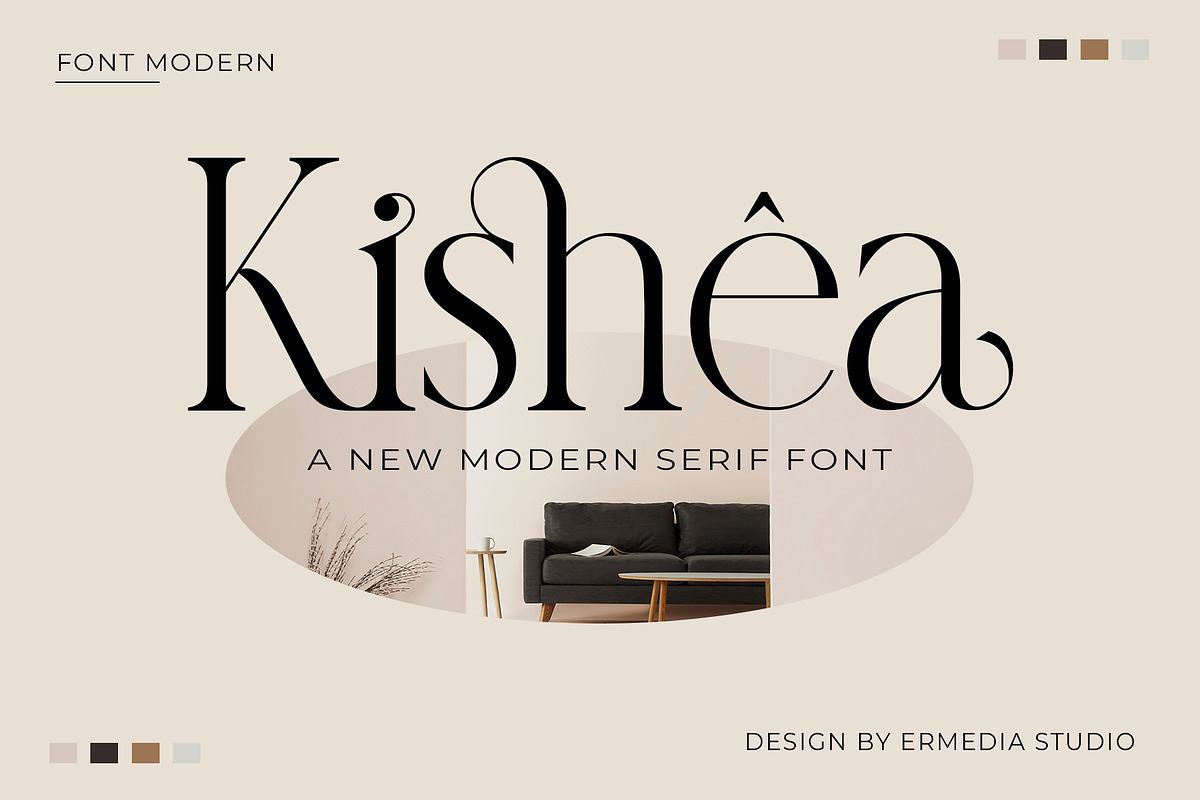
Kishea Serif Font Free Download
Please note, to use this font for commercial purposes, you must purchase the full version. Kishea is a stylish and elegant serif font that combines modern design with classic sophistication. Perfect for branding, logos, invitations, and editorial projects, this font brings a refined and professional touch to your work. Whether you're designing for a high-end brand, a formal event, or a chic product, Kishea adds a timeless and polished feel to your designs. Test it out and enjoy free download access for personal use. Experience the elegance of Kishea Serif Font Free Download before purchasing the commercial license. Add a graceful, professional touch to your designs with Kishea.